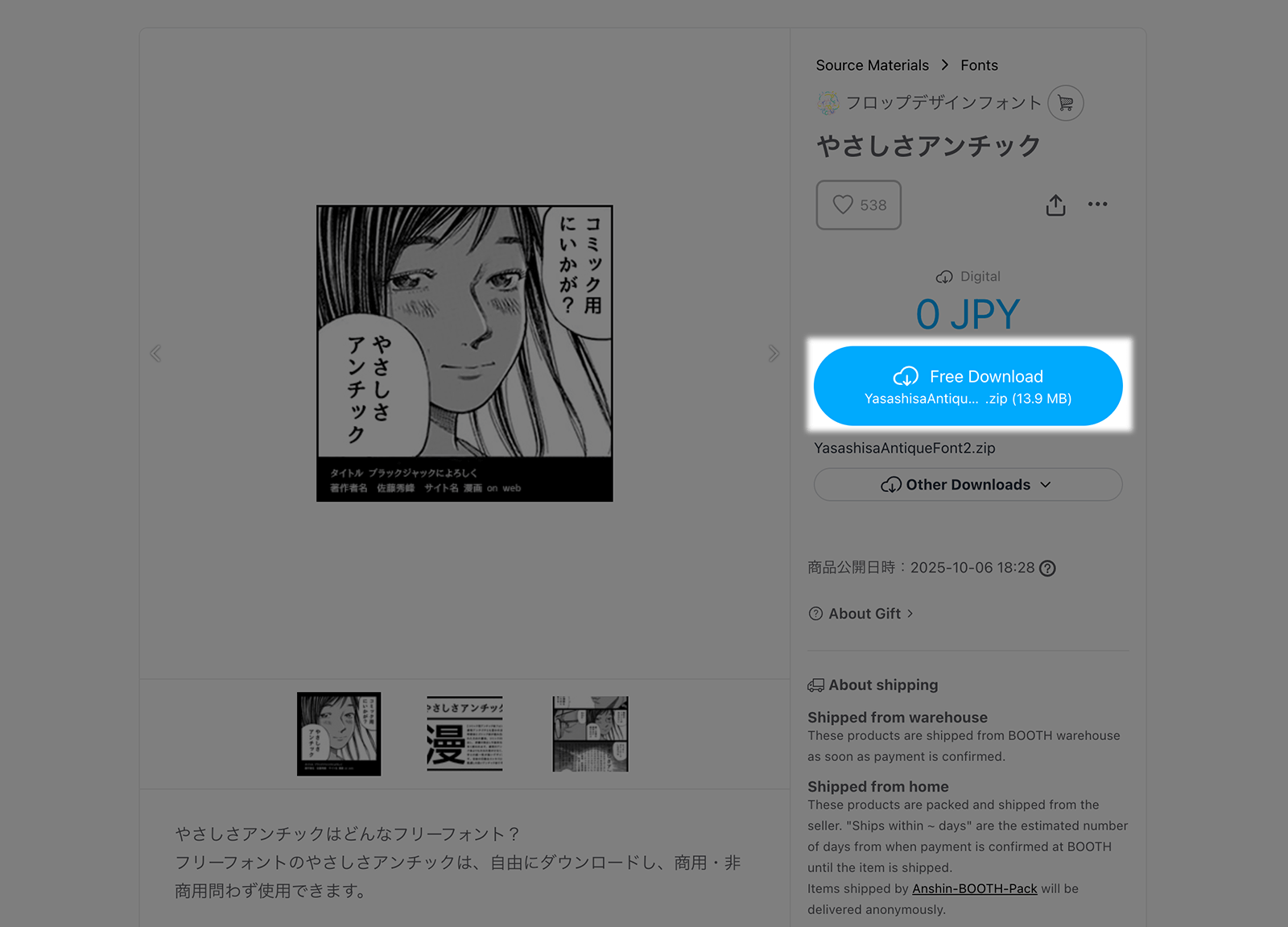
Yasashisa Antique
Yasashisa Antique is a open source font that was created by combining three other popular Japanese open source fonts: M+, IPA Gothic and IPA Mincho. This is a Antique Gothic font which is widely used in comic dialogs.
- Hiragana and Katakana
- Kanji (JIS Level 1 + Level 2)
- Alphanumeric
- Symbols and punctuations